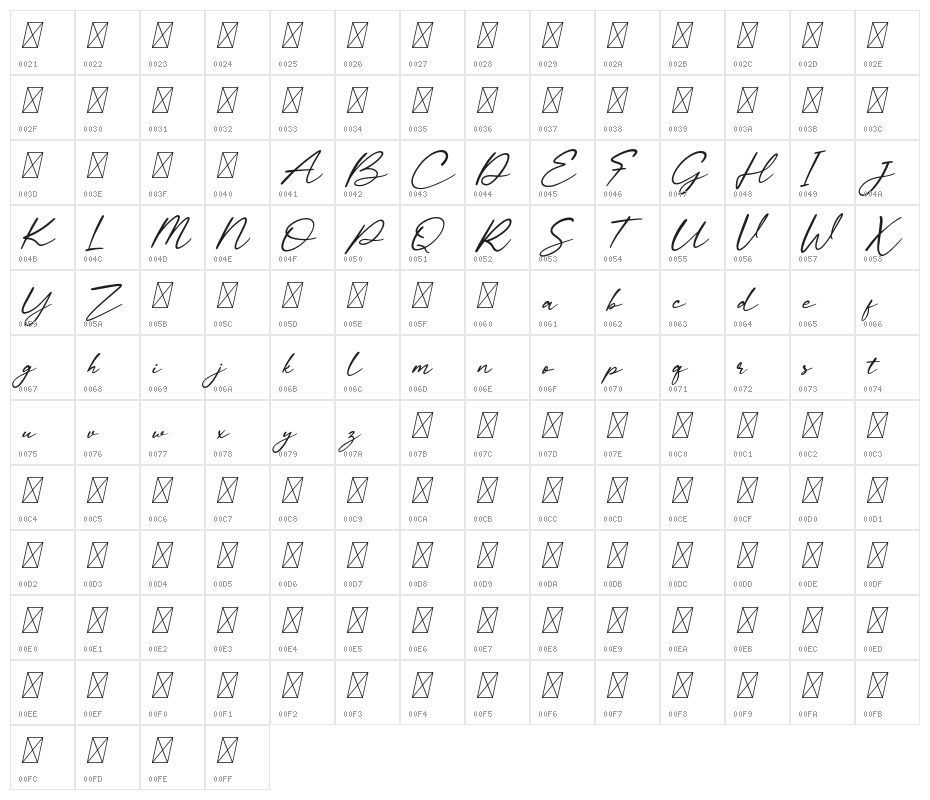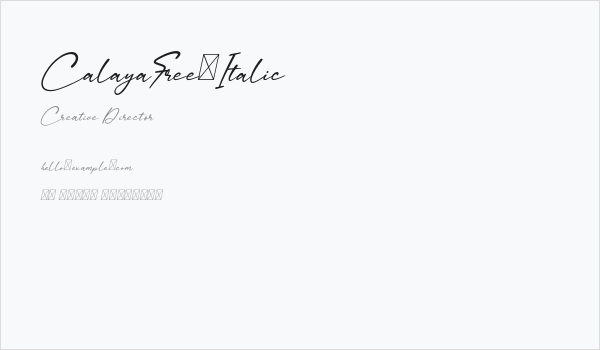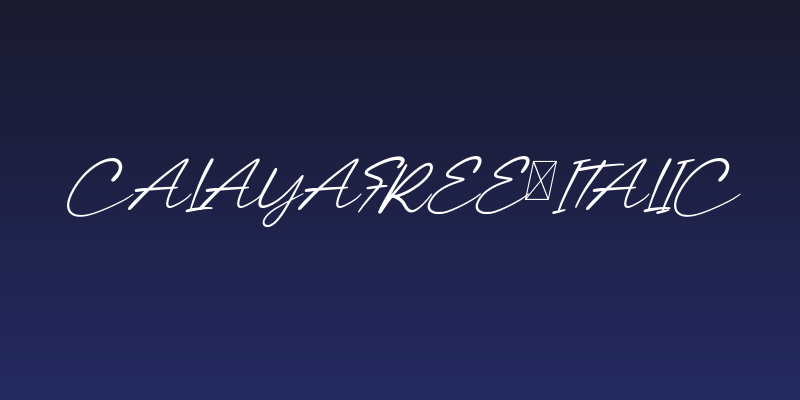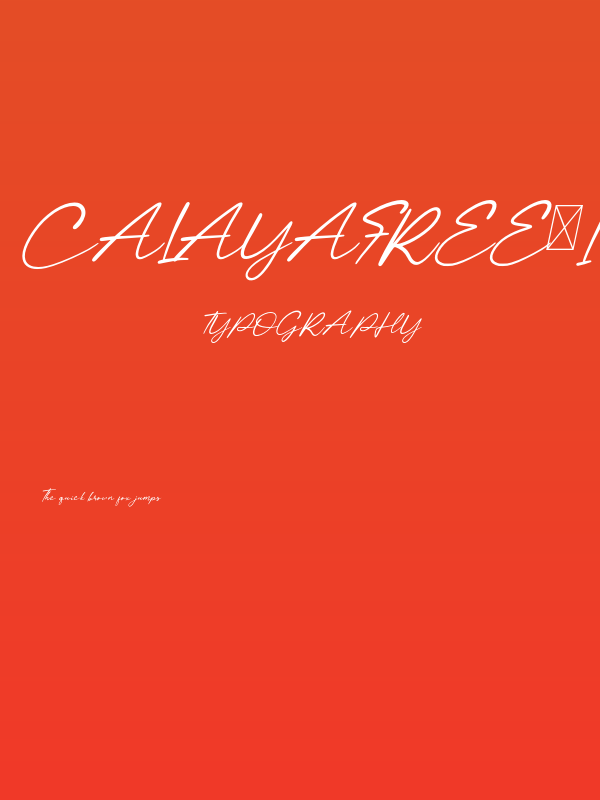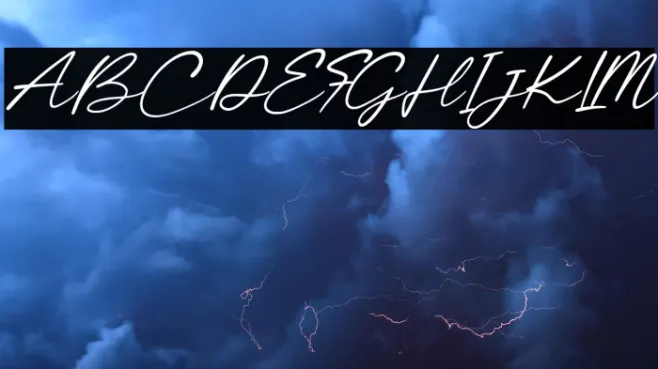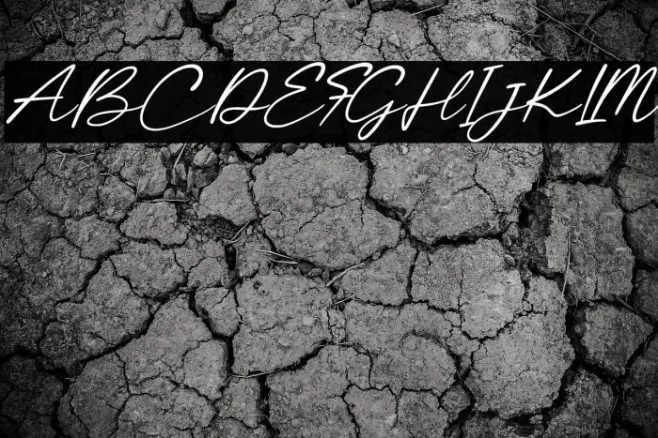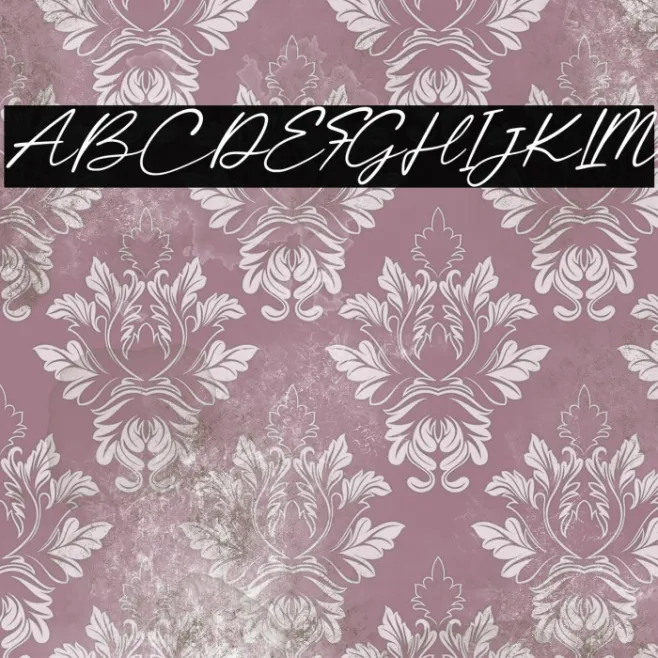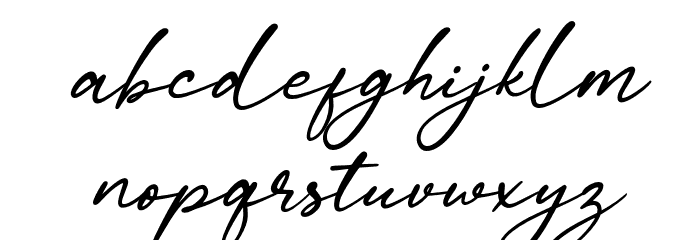
CalayaFree-Italic Font
CalayaFree-Italic Description
This font features a flowing, cursive style with elegant and smooth strokes. The uppercase letters are tall and slightly slanted, giving a sense of movement and grace. The lowercase letters maintain a consistent style, with loops and curves that enhance its handwritten appearance. The font's italic nature adds a dynamic and sophisticated touch, making it suitable for creative and expressive projects. The overall design is clean and legible, ensuring readability while maintaining an artistic flair.
| Overall Style | Elegant, Handwritten |
| Use Case | Logos, Invitations, Greeting Cards |
| Proposed Projects | Ideal for wedding invitations, greeting cards, branding, and elegant logos. |